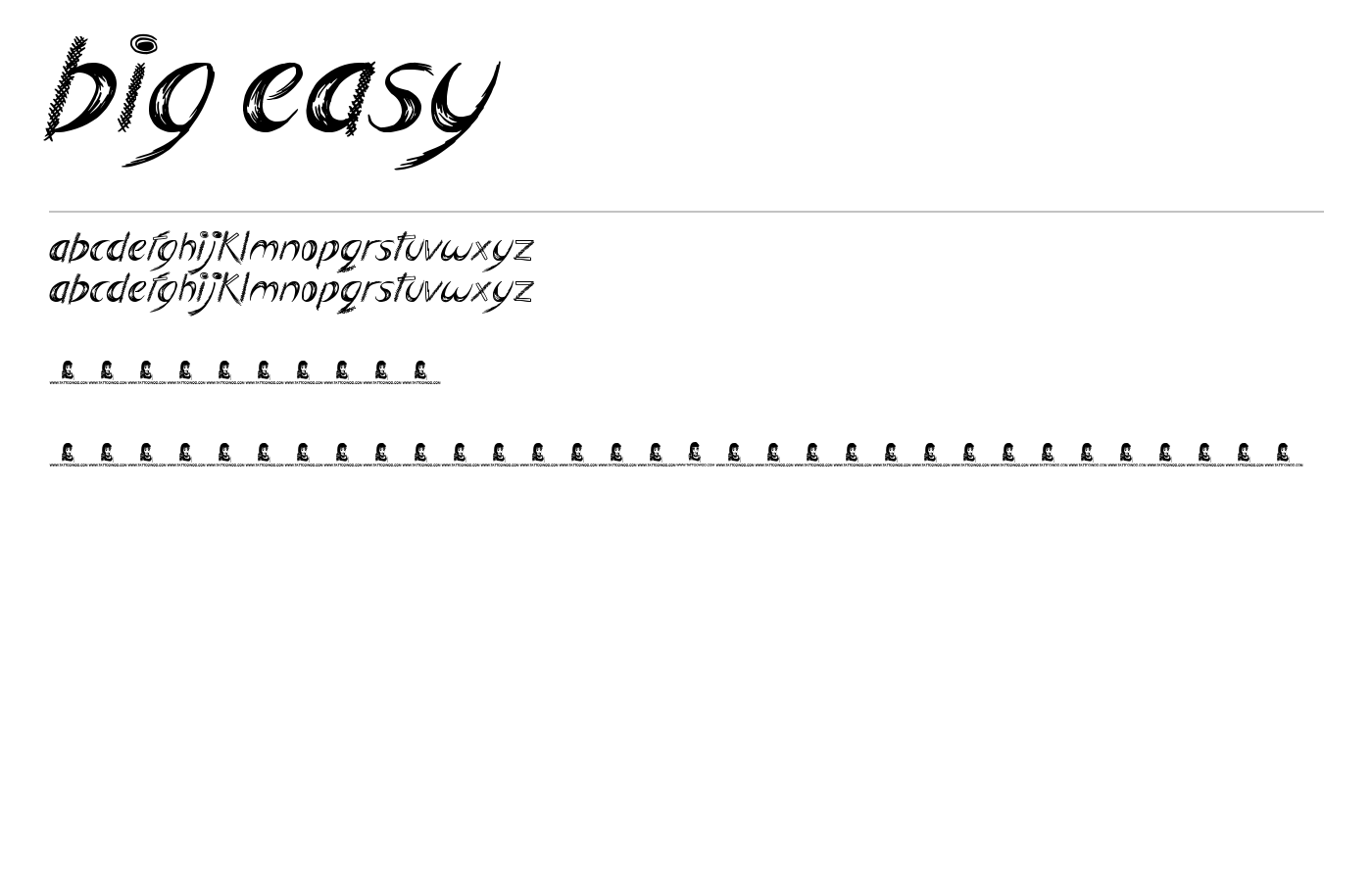
Big Easy is an expressive script font with a dynamic, brush-stroke appearance that conveys a casual, artistic vibe. Its flowing, slightly textured letterforms with varied stroke widths make it ideal for creative and informal designs, such as logos, posters, and branding that seek a lively, handcrafted feel. This font works best where personality and energy are key, adding a touch of playful elegance to your visuals.
Big Easy Font
About Big Easy Font